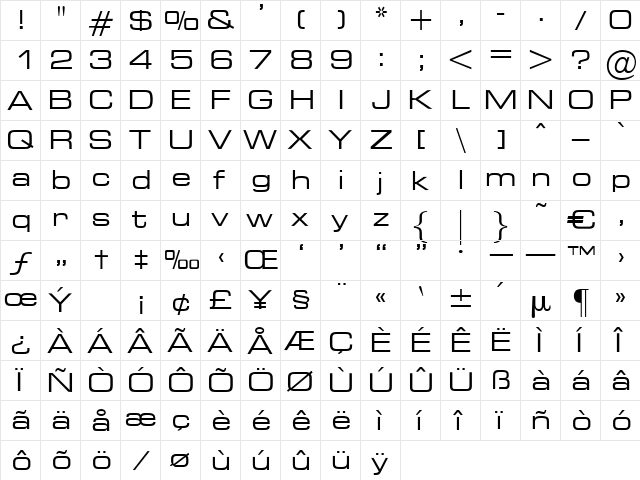
TheklaExtended Regular Font Preview
TheklaExtended Regular
Design Context for TheklaExtended Typeface
TheklaExtended offers clean, dependable letterforms without strong stylistic allegiance, making it a practical choice for designers who need flexibility.